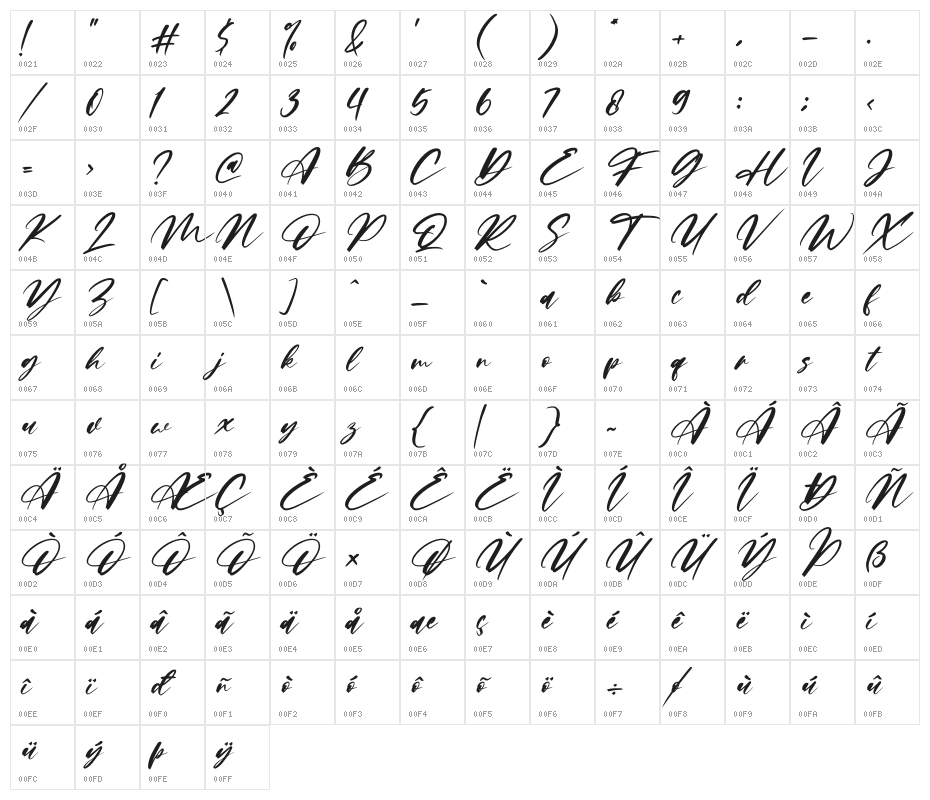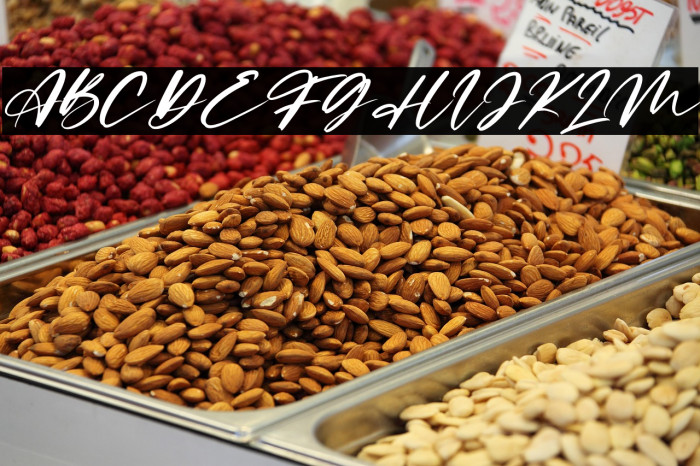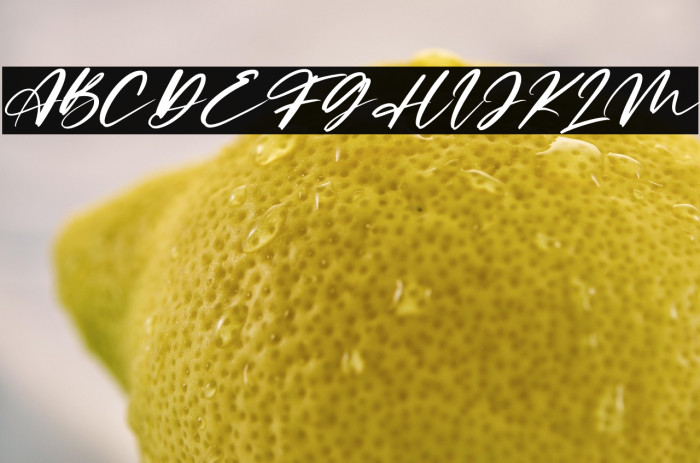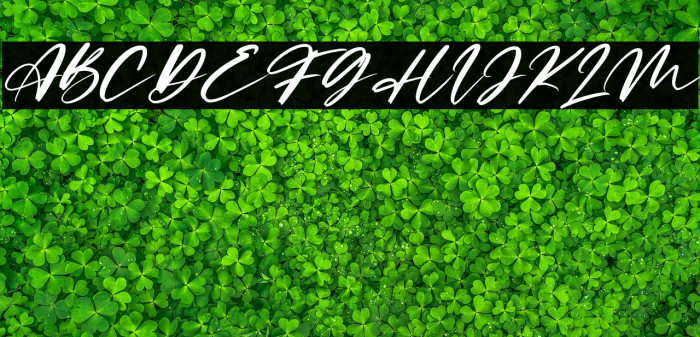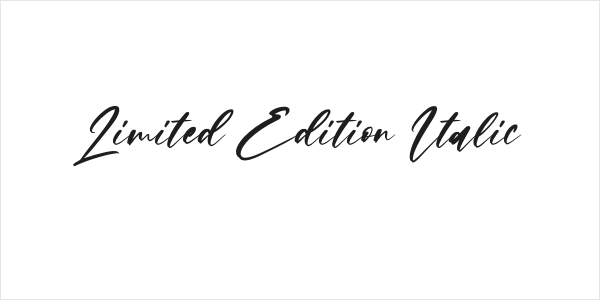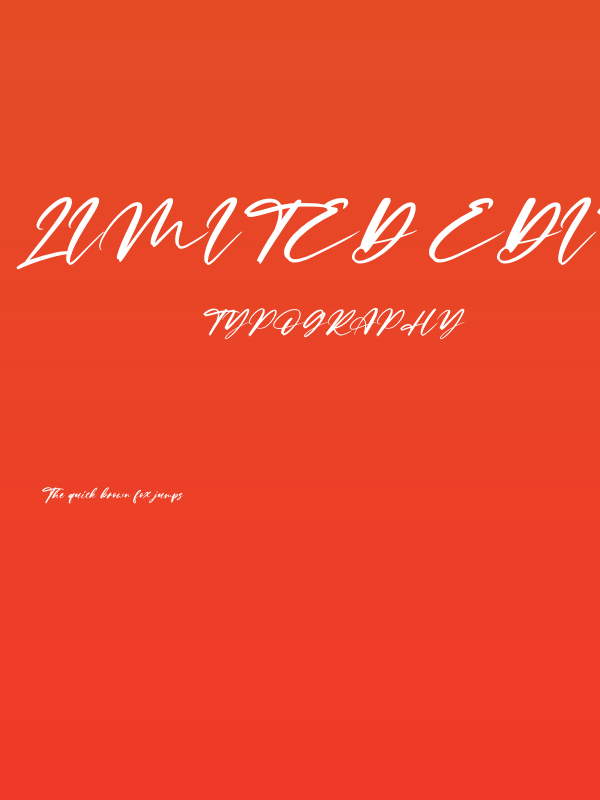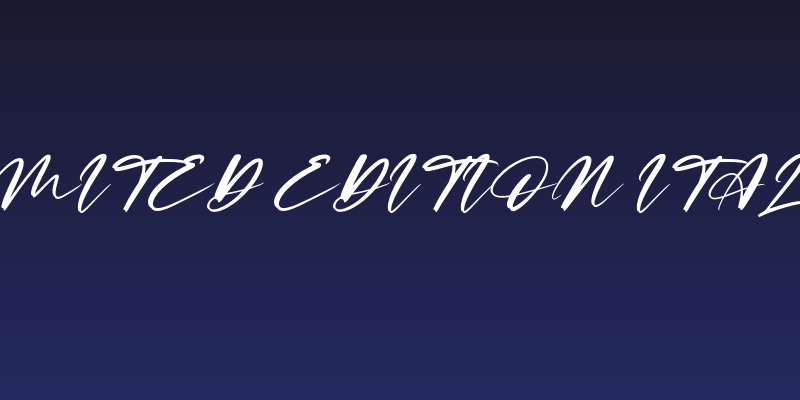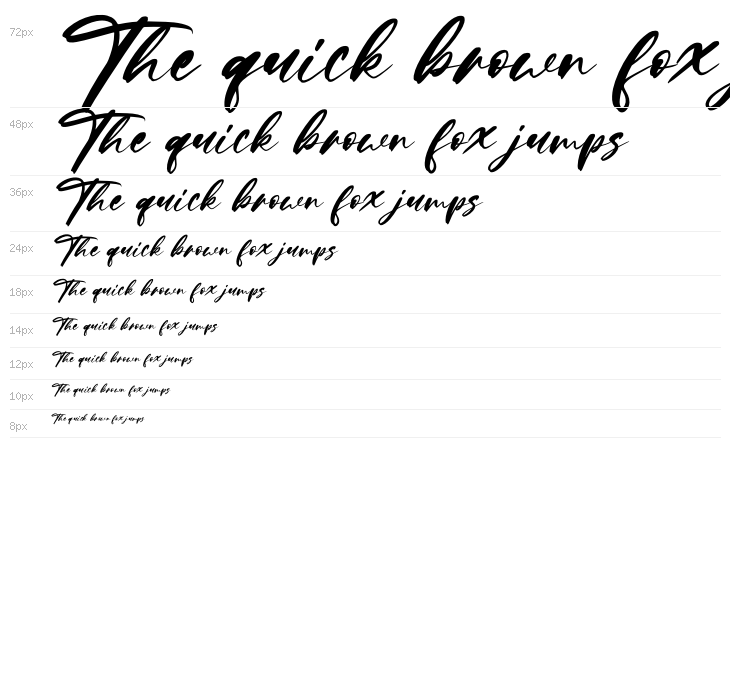
Limited Edition Italic Font
Limited Edition Italic Description
This font exudes a dynamic and expressive style, characterized by its flowing, cursive script that mimics the fluidity of handwriting. The letters are elegantly slanted, giving a sense of motion and grace. Each character is crafted with varying stroke widths, adding a lively contrast that enhances its visual appeal. The uppercase letters are bold and prominent, while the lowercase letters maintain a consistent rhythm, creating a harmonious balance. The numerals and special characters are designed with the same attention to detail, ensuring a cohesive look throughout. This font is perfect for projects that require a personal touch or a sense of elegance and sophistication.
| Overall Style | Elegant, Expressive |
| Proposed Projects | Ideal for wedding invitations, greeting cards, branding, and elegant packaging. |